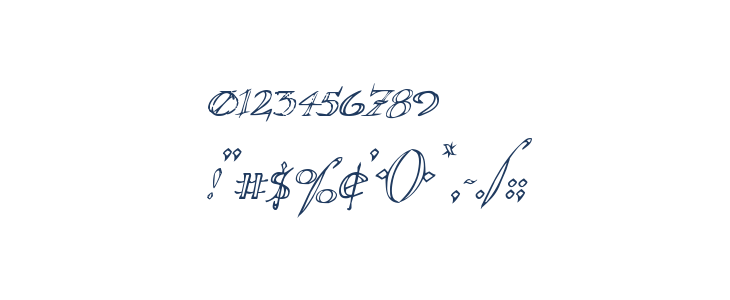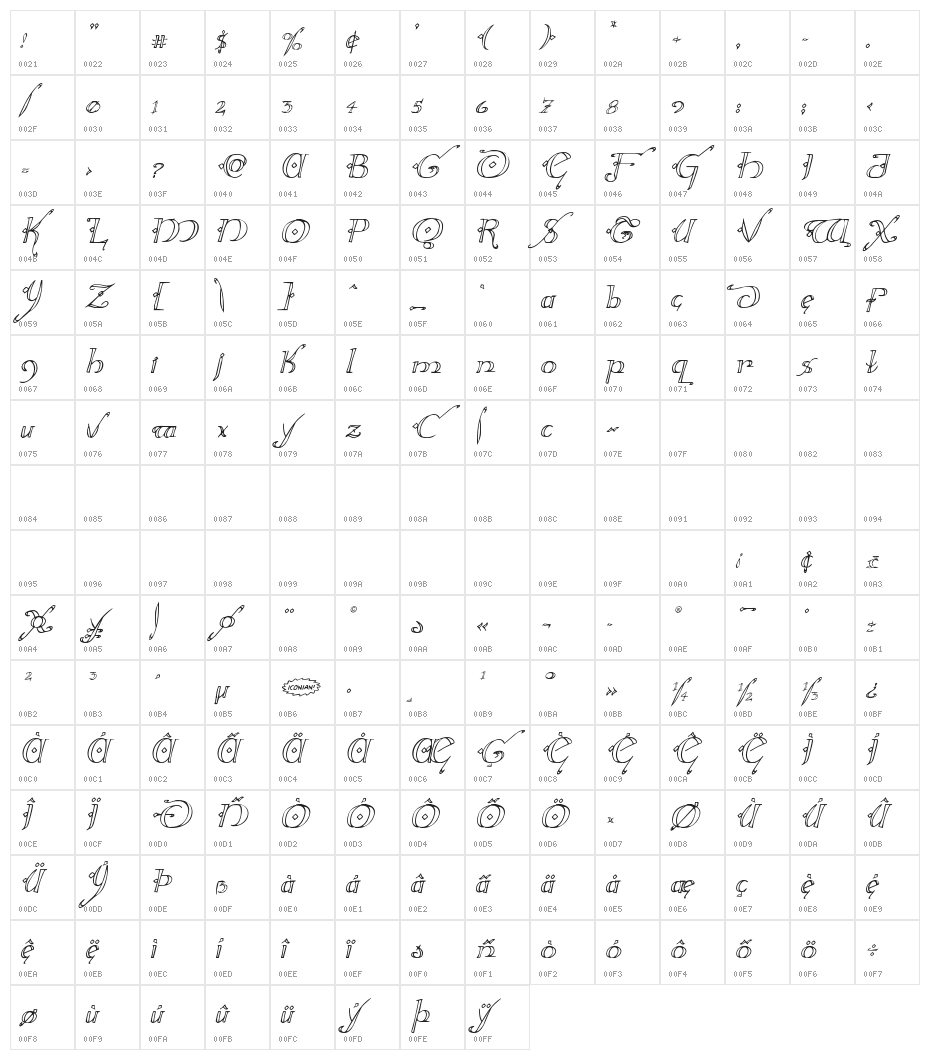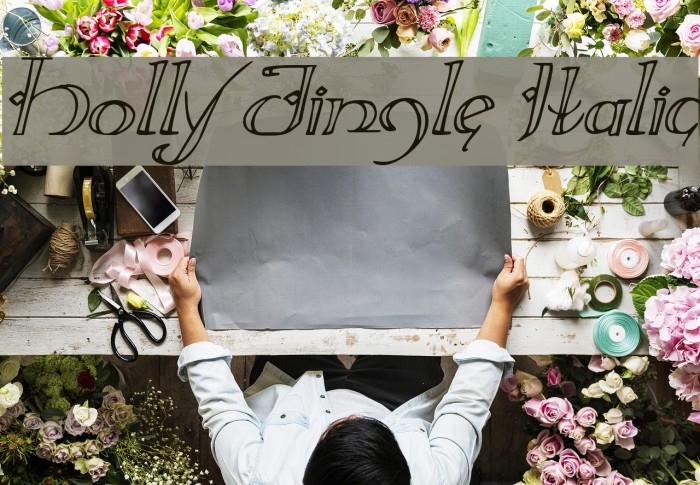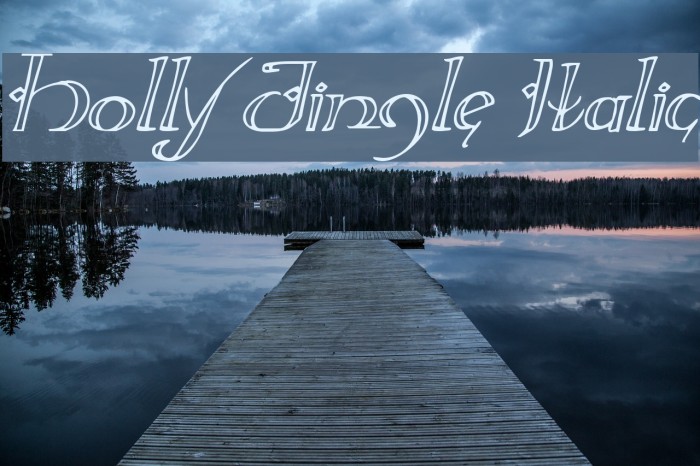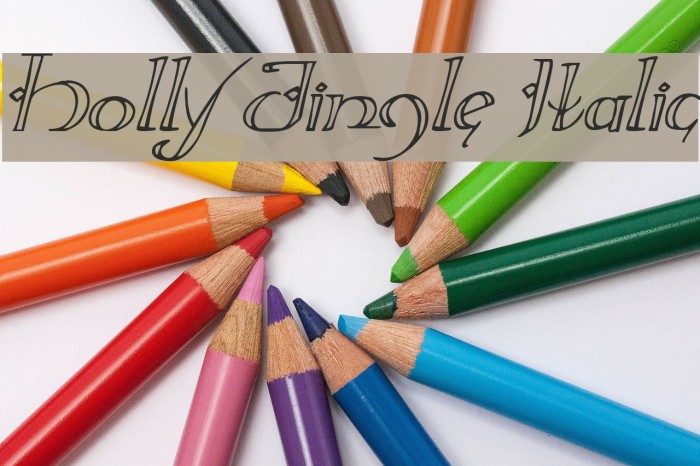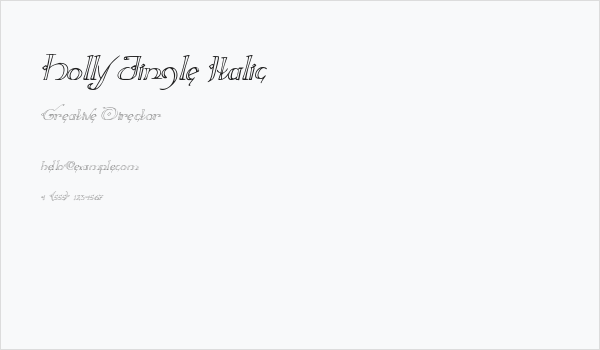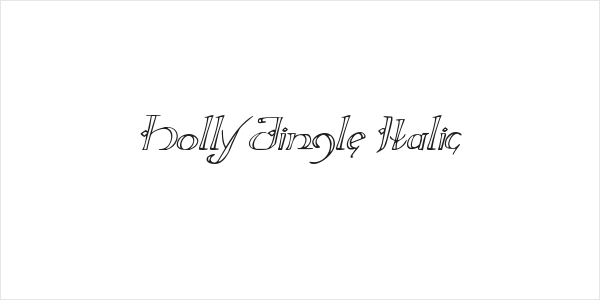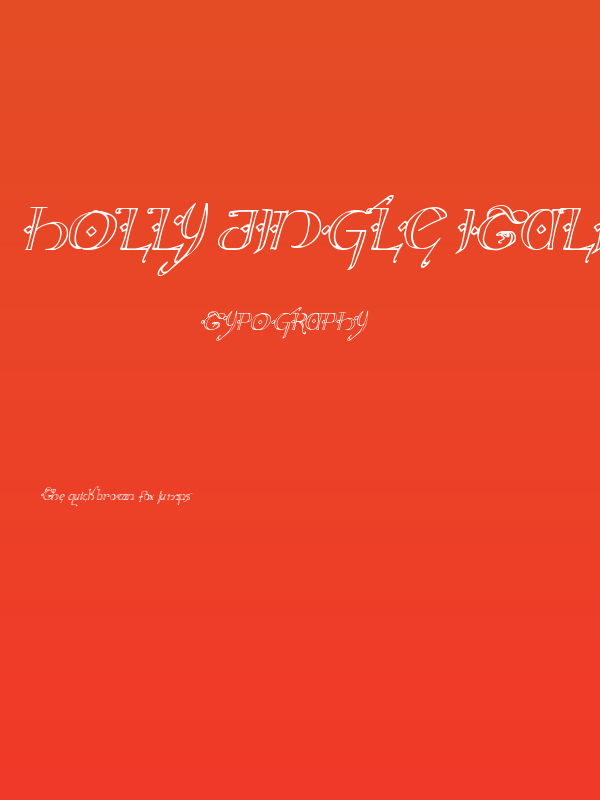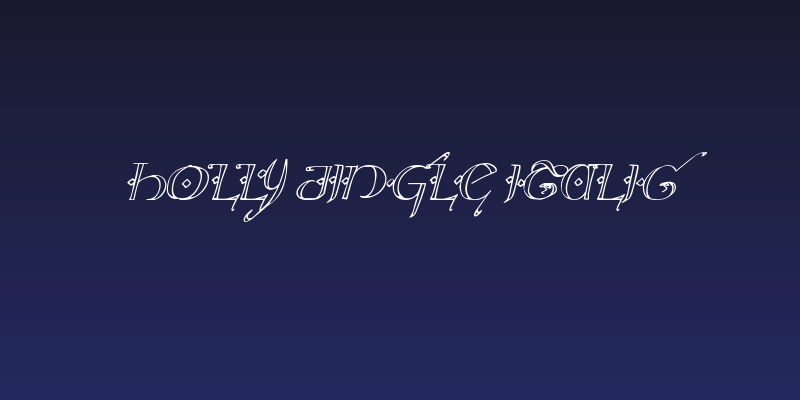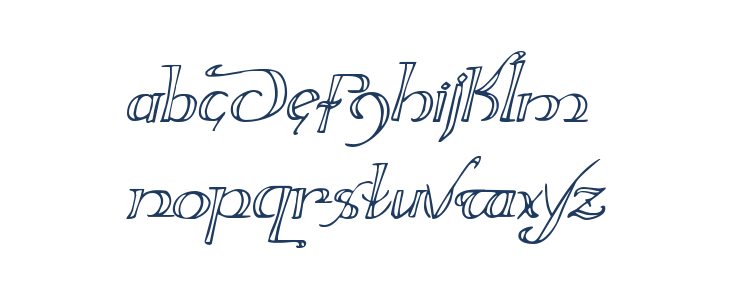
Holly Jingle Italic Font
Holly Jingle Italic Description
This font features an elegant and whimsical design, characterized by its flowing, cursive style with intricate loops and flourishes. The letters are adorned with decorative elements that give it a festive and playful appearance, reminiscent of holiday themes. The italicized slant adds a dynamic and lively feel, while the thin strokes and high contrast between thick and thin lines enhance its sophisticated look. The overall design is both ornate and readable, making it suitable for decorative purposes.
| Proposed Projects | Ideal for holiday cards, festive invitations, decorative posters, and branding that requires a playful yet sophisticated touch. |